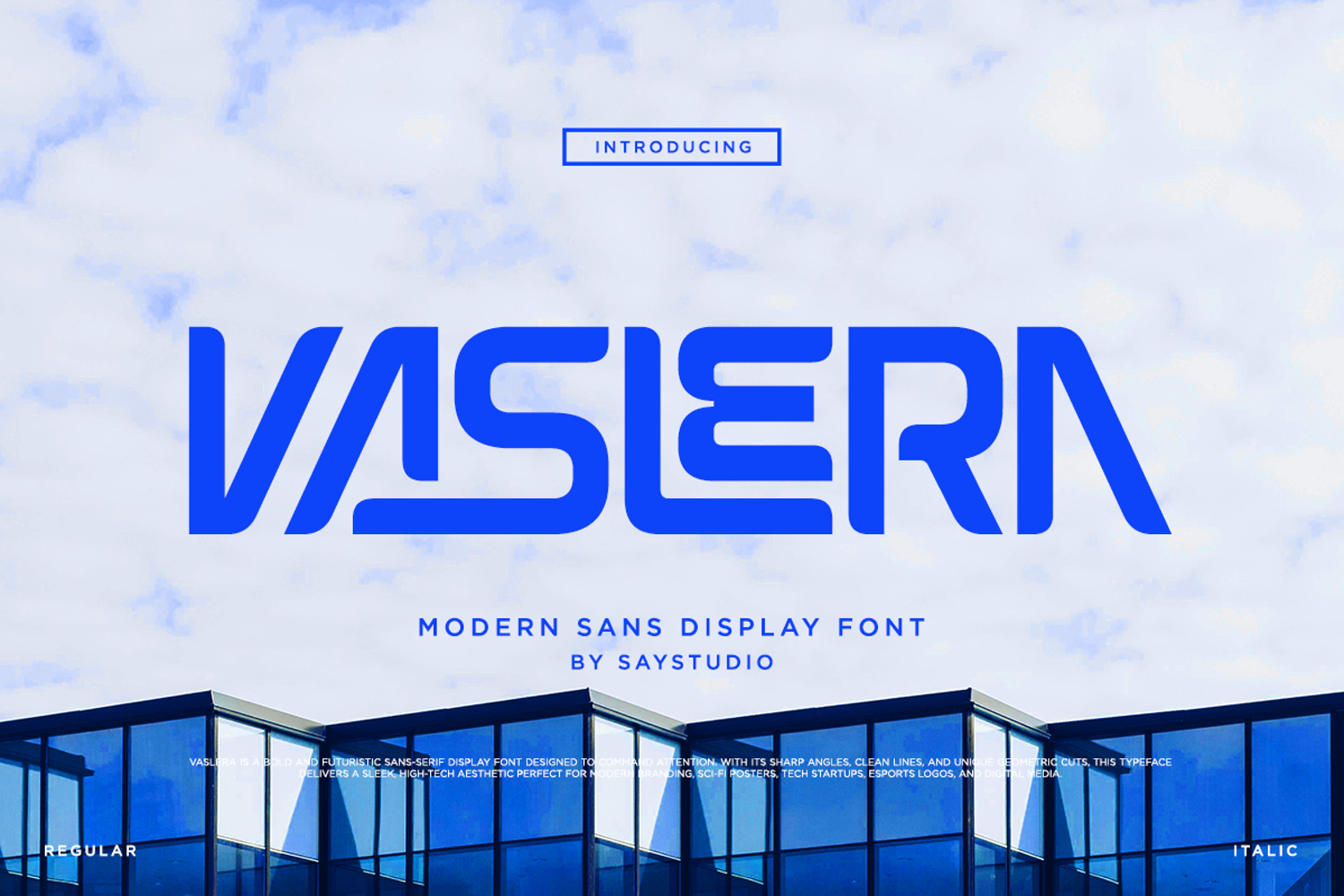
Vaslera - Futuristic Tech Sans Serif Font
Step into the future with Vaslera, a bold futuristic sans serif font crafted for creators who want their designs to stand out. Featuring geometric letterforms, sharp angular cuts, and sleek modern curves, Vaslera delivers a powerful high-tech aesthetic that instantly captures attention. Its distinctive character shapes create a strong visual identity while maintaining excellent readability across both digital and print applications.
Inspired by advanced technology, sci-fi interfaces, cyberpunk visuals, and modern innovation, Vaslera is perfectly suited for projects that demand a cutting-edge look. Whether you're designing startup branding, esports graphics, technology products, futuristic posters, gaming content, or digital experiences, this font brings a professional and forward-thinking personality to every design.
Vaslera includes versatile display styling that works beautifully for logos, headlines, packaging, social media graphics, website banners, UI concepts, tech presentations, and branding systems. Its futuristic construction and contemporary appeal make it an excellent choice for designers seeking a modern typeface that communicates innovation, speed, and confidence.
• Regular and Italic Style
• Stylistic Ligatures
• Uppercase and Lowercase
• Number, Symbol, and Punctuation
• Multi Language Support